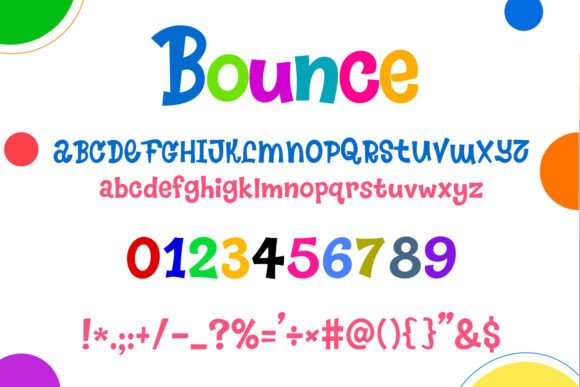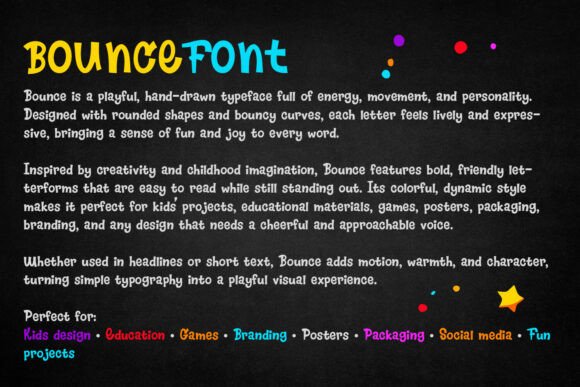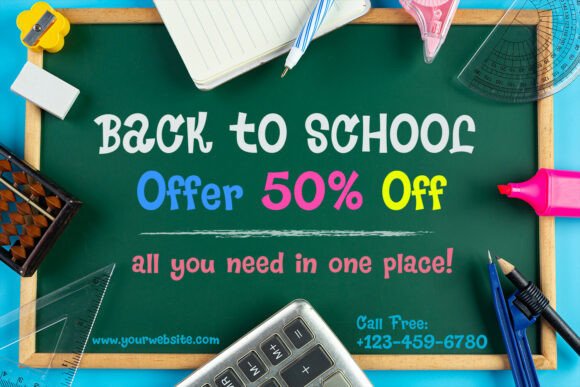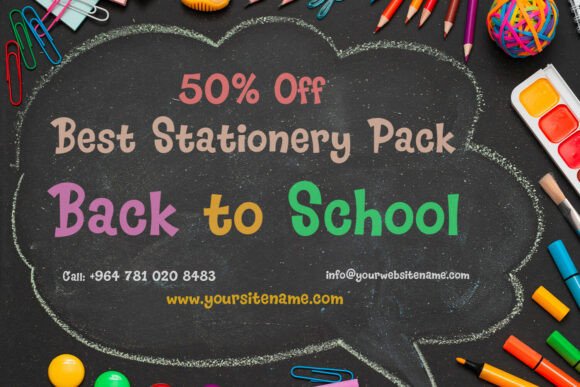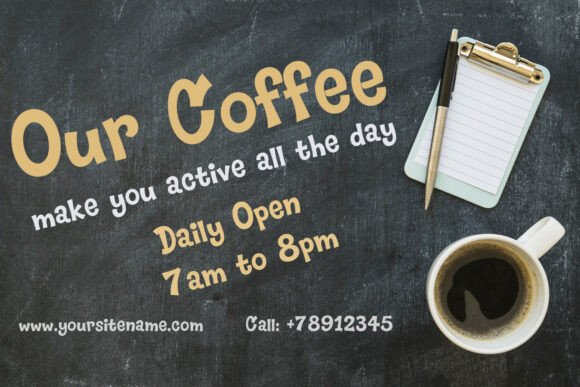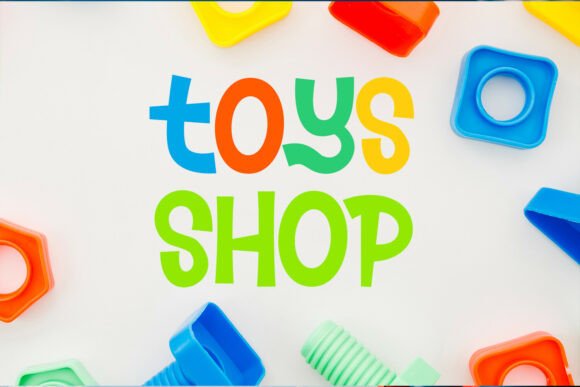
When Creativity Hits: Introducing the Bounce Font
Have you ever been in a brainstorming session, surrounded by sticky notes, markers, and endless cups of coffee, when suddenly a spark of creativity hits you? You feel invigorated, and your ideas start flowing like a river. That’s exactly the kind of energy the Bounce Font embodies.
Designed to bring joy and movement to your design projects, the Bounce Font is a playful, bold, and hand-drawn display font that’s full of personality. With its bouncy curves and friendly letterforms, this font is perfect for kids designs, educational materials, games, posters, branding, packaging, social media graphics, and fun creative projects. Whether you’re working on a children’s book or playful branding, the Bounce Font helps your typography stand out with warmth and charm.
Bounce Font Key Features
- Font Family: Bounce Font is a sans-serif font family.
- Character Set: Supports a wide range of languages, including Latin, Cyrillic, and Greek.
- Font Size: Available in various sizes, ranging from 8pt to 72pt, with precise control over font scaling.
- Resolution: Designed for use at high resolutions, up to 300 DPI (dots per inch), making it suitable for print and digital applications.
- Unique Characteristics: Bounce Font features a unique, energetic feel with a mix of geometric and rounded shapes, making it ideal for dynamic and creative projects.
Bounce Font Review
I recently had the chance to work with the Bounce Font, and I must say it’s been an interesting experience. Here’s my honest review.
- Unique and playful vibe: Bounce Font has a fun and energetic feel to it, making it perfect for designs that require a touch of whimsy.
- Good legibility: Despite its playful nature, the font is still easy to read, especially in larger sizes.
- Customizable: The font comes with a range of weights and styles, giving designers the flexibility to experiment with different looks.
- Limited use in formal designs: Due to its playful nature, Bounce Font may not be the best choice for formal or professional designs.
- May not work well in small sizes: While legible in larger sizes, the font can become fuzzy and difficult to read in smaller sizes.
The Bounce Font is a great addition to any designer’s toolkit, especially for projects that require a fun and energetic vibe. While it may have some limitations, its unique personality and customizable options make it a great choice for the right projects.
The Bounce Font is ideal for:
- Social media graphics and posts
- Posters and flyers
- Infographics and educational materials
Remember to use the Bounce Font in moderation to avoid overwhelming your audience.
Alternatives to Bounce Font
Great Vibes is a beautiful, handwritten font that is perfect for creating a fun and playful atmosphere. It has a more elegant and refined feel compared to Bounce Font, making it suitable for branding and advertising materials. Great Vibes has a more subtle bounce effect, which can be used to add a touch of whimsy to text without overwhelming the reader.
Pacifico is a stylish, cursive font that is ideal for creating a relaxed and sophisticated look. It has a more subtle, flowing feel compared to Bounce Font, making it suitable for luxury brands and high-end materials. Pacifico has a more understated bounce effect, which can be used to add a touch of elegance to text without overpowering the reader.
Carolyna Pro is a modern, script font that is perfect for creating a trendy and eye-catching look. It has a more dynamic and energetic feel compared to Bounce Font, making it suitable for social media and digital materials. Carolyna Pro has a more pronounced bounce effect, which can be used to add a touch of excitement to text without overwhelming the reader.